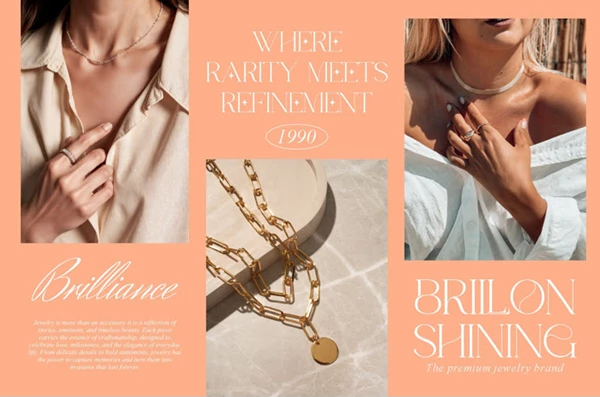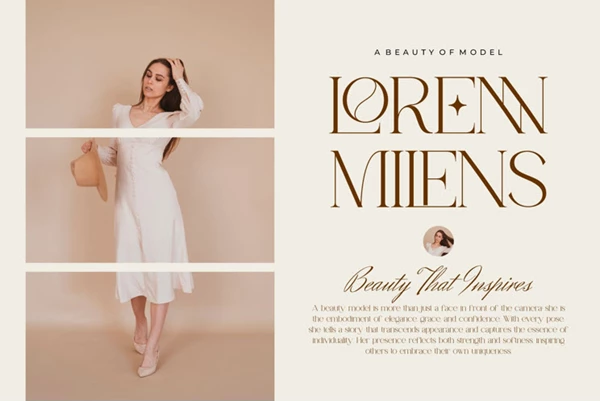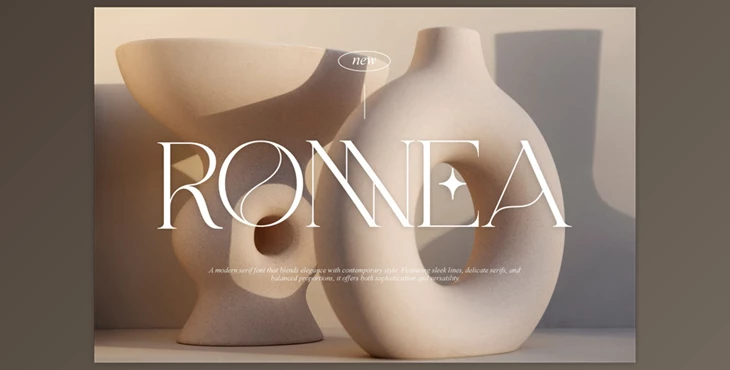
Fontbundles - Ronnea || Modern Minimalist Serif:
The Ronnea Serif is a modern and clean font that fits all types of designs. If you're looking for a font with beautiful characters to complement your branding logo projects, Ronnea Serif is the way to go. It can be used for invitation cards, logos, title cards, and credits of movies, business cards, book covers, and even brand names. Ronnea Serif is your font for a modern, crisp serif design, complete with elegant ligatures that can be used for all types of creations.
Some great features of Fontbundles - Ronnea || Modern Minimalist Serif:
- Includes stylish ligatures
- Includes upper and lower case letters
- Includes numbers and punctuation